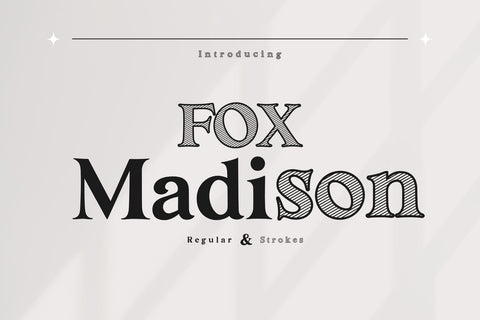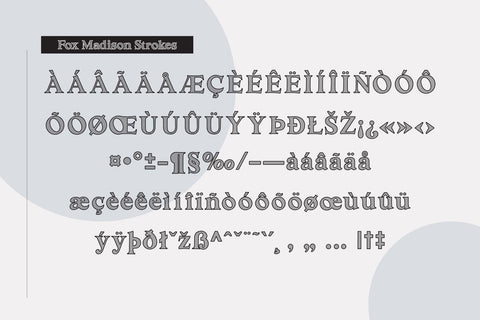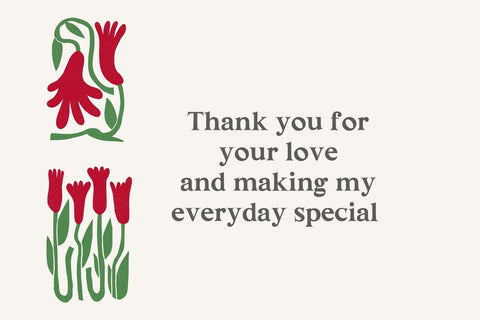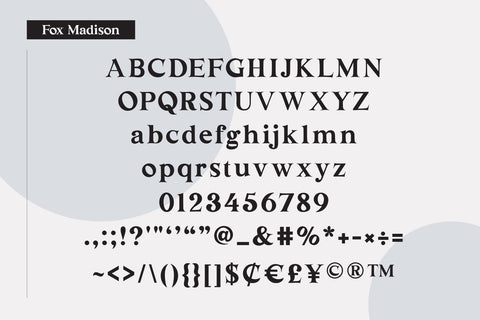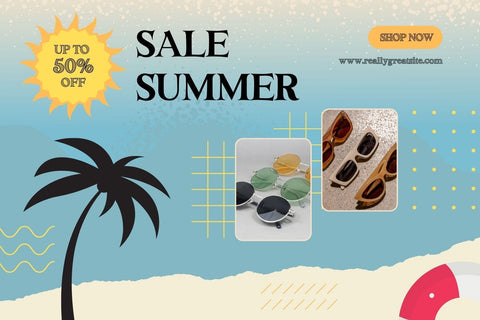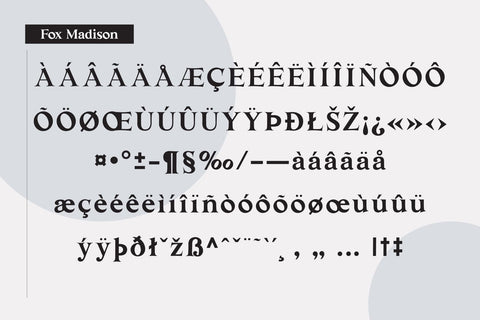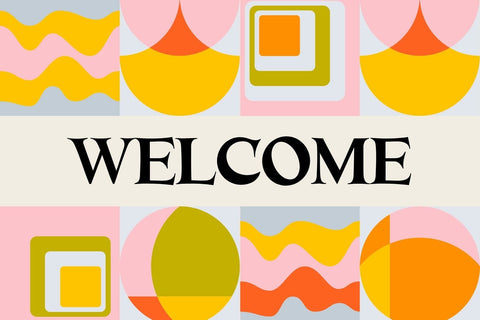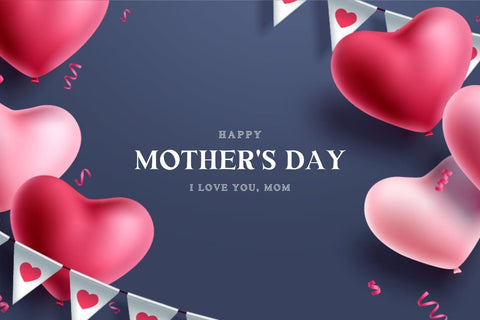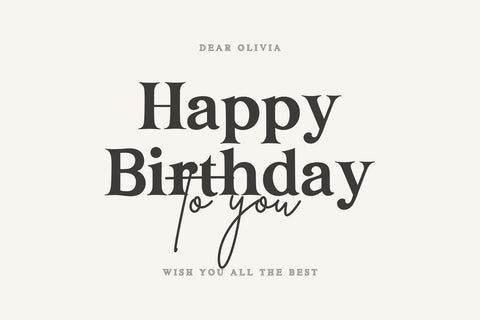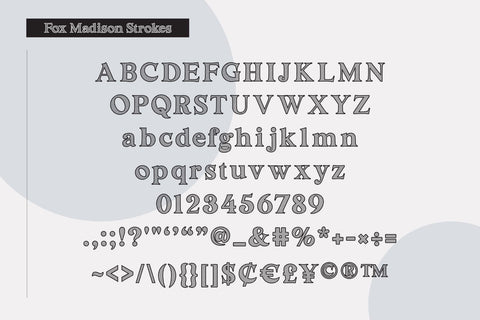
Fox Madison Font Duo
Fox Madison is a versatile font with 2 modern and beautiful styles. It is compatible with both contemporary and vintage design aesthetics. You can use it for various projects, including blog posts, logos, branding, advertisements, invitations, greeting cards, planners, photo albums, decorations, and much more.